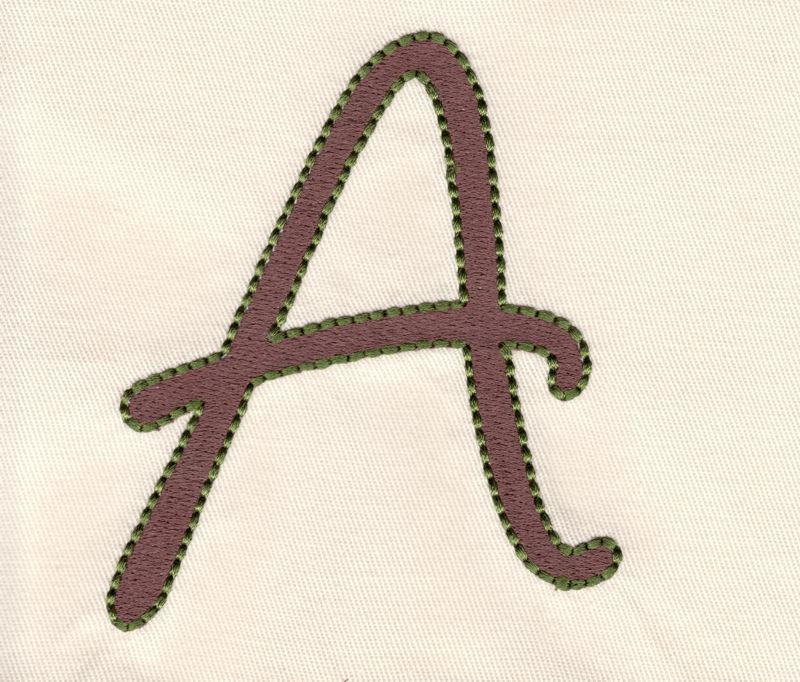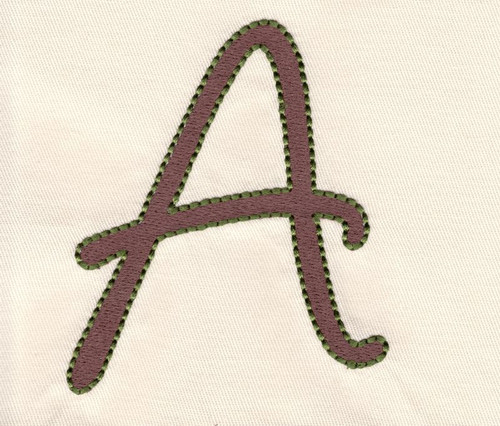
274 Angelina Fill & Floss Font
Angelina Floss & Fill Font comes in three sizes: 2", 3" and 4". Each size is based on the capital A and includes uppercase, lowercase, numbers and four punctuations. Each character is set up in two color stitch out with fill stitch center and Floss stitch outline. Some characters in the 3" set and most in the 4" set exceed hoop limitations of the standard 4x4 hoop.